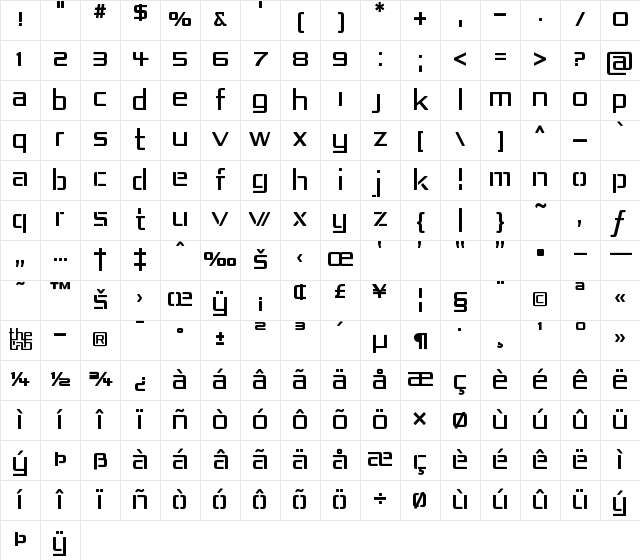
Republika IV Regular
Designer: Apostrophe
Design Context for Republika IV
Republika IV is a composed and adaptable typeface that performs quietly and consistently across a wide range of design contexts.